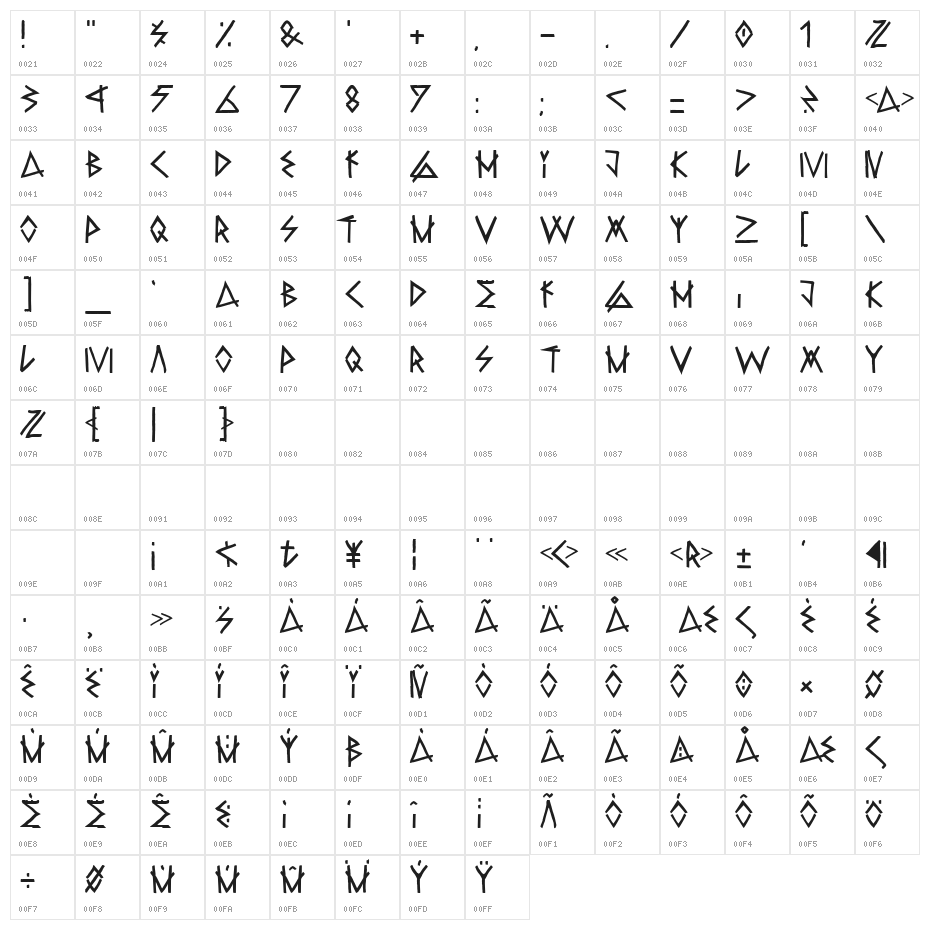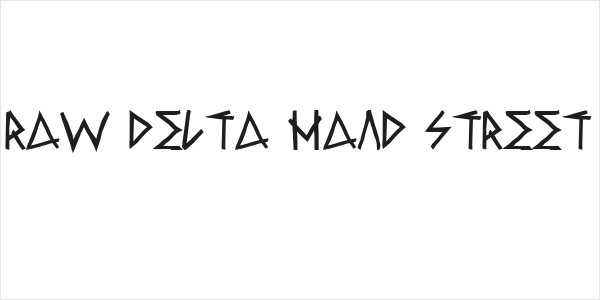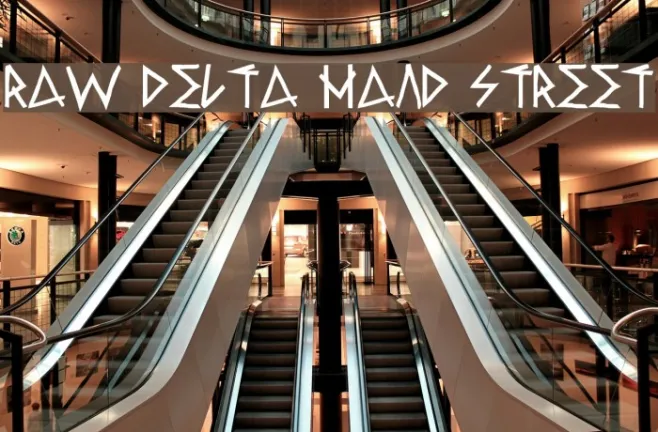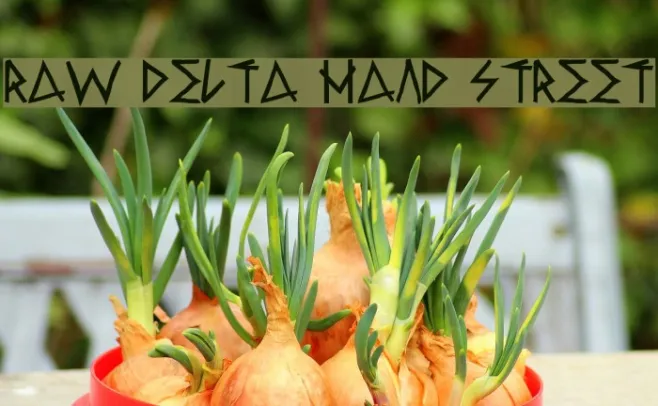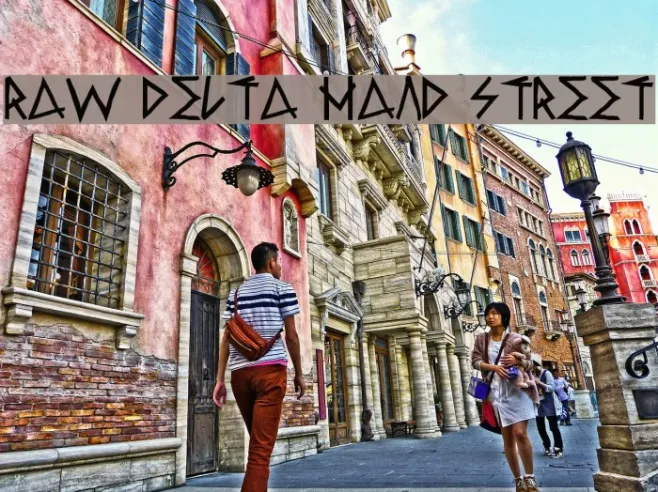
Raw Delta Hand Street Font
Raw Delta Hand Street Description
This font exhibits a bold, angular style reminiscent of ancient runic alphabets, characterized by sharp, geometric lines and a hand-drawn aesthetic. The uppercase and lowercase letters share a consistent angularity, creating a cohesive visual identity. Numbers and special characters maintain this style, ensuring uniformity across all glyphs. The font's unique design makes it stand out, offering a distinct look that can add a historical or mystical touch to any project. Its strong visual impact is ideal for designs that require a bold statement.
| Proposed Projects | Ideal for fantasy-themed designs, game titles, posters, and logos that require a mystical or ancient feel. |